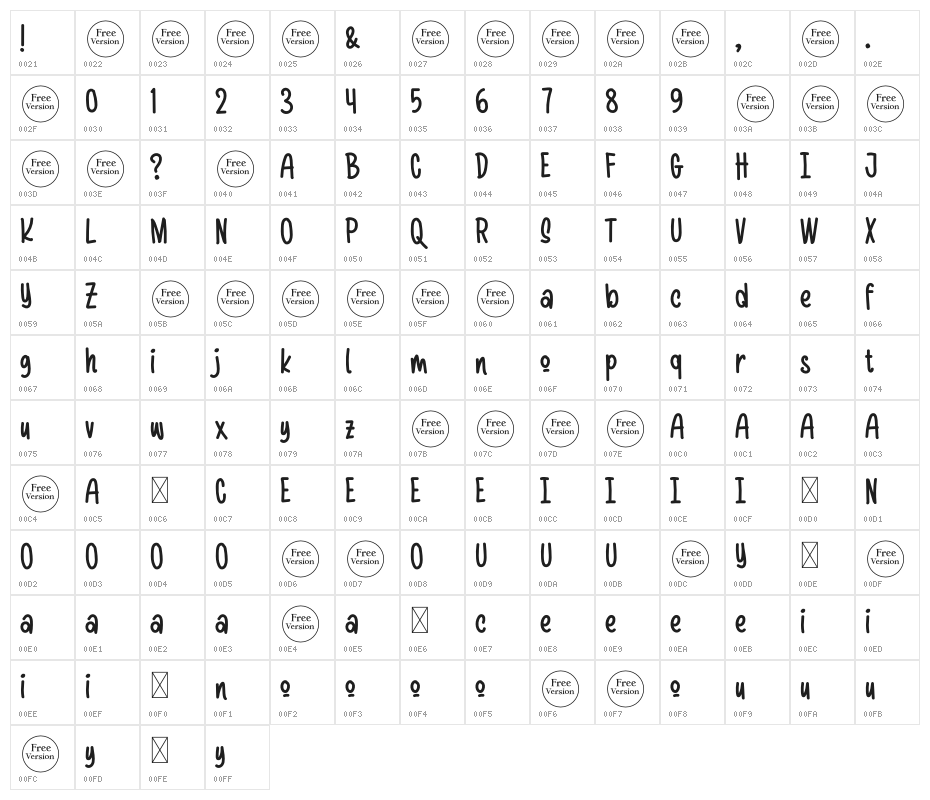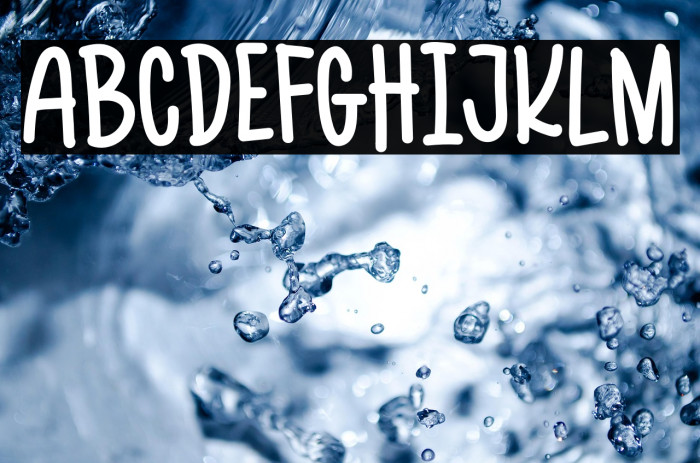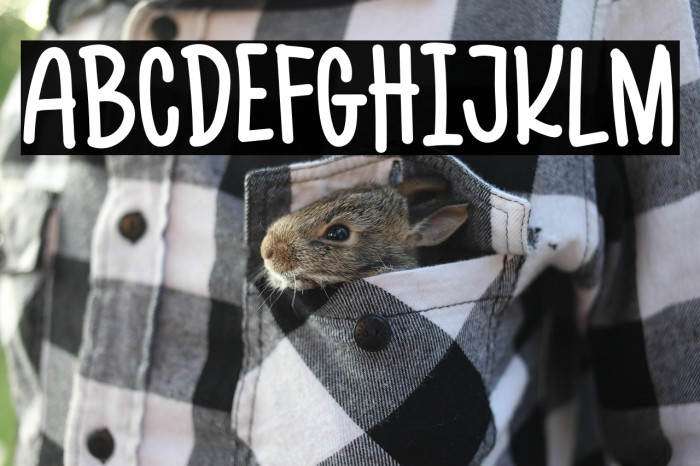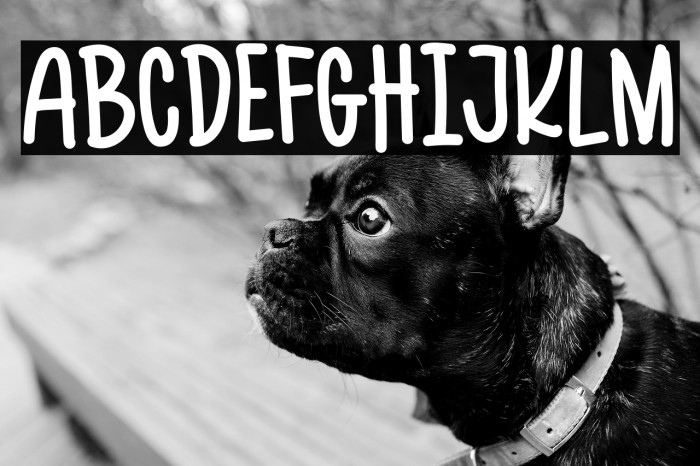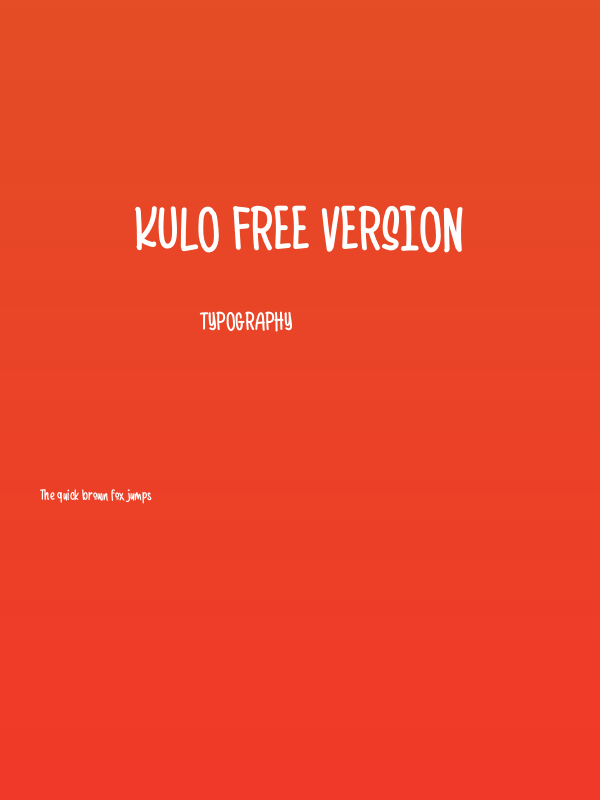
Kulo Free Version Font
Kulo Free Version Description
This font features a playful and casual handwritten style, characterized by its rounded and slightly irregular letterforms. The uppercase letters are bold and prominent, while the lowercase letters maintain a consistent flow with a friendly appearance. The numbers and special characters follow the same playful aesthetic, making the font versatile for various creative projects. The overall look is approachable and informal, suitable for designs that aim to convey warmth and friendliness.
| Overall Style | Casual, Playful |
| Use Case | Headlines, Logos, Informal Text |
| Proposed Projects | Ideal for children's books, greeting cards, playful branding, and informal invitations. |